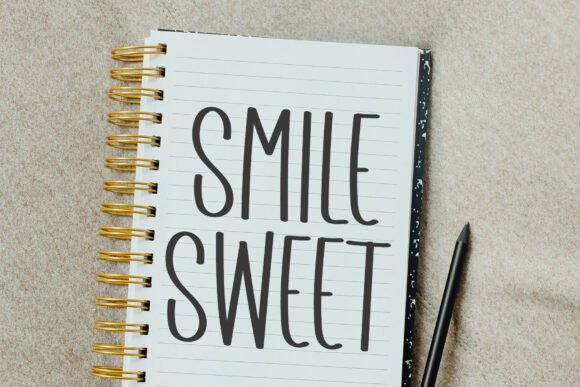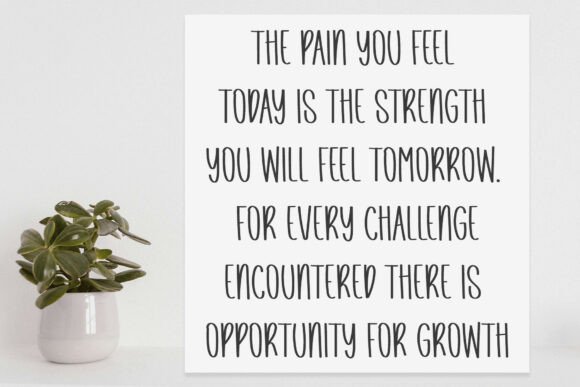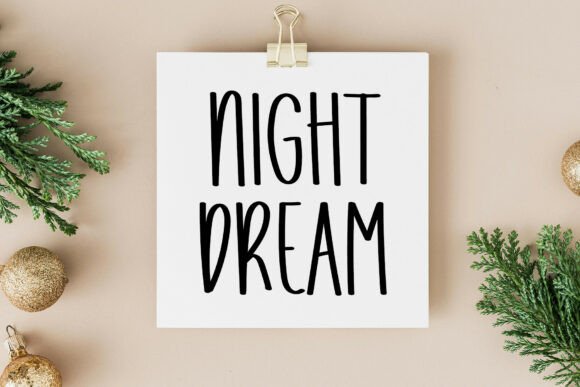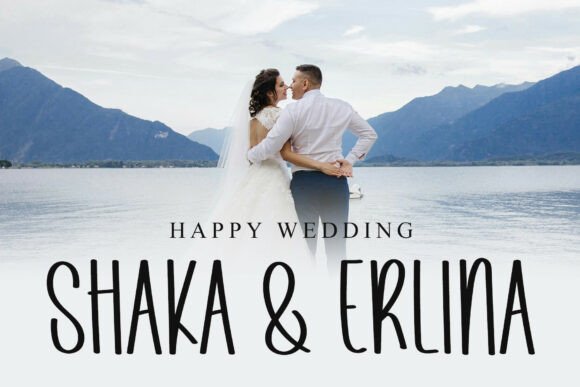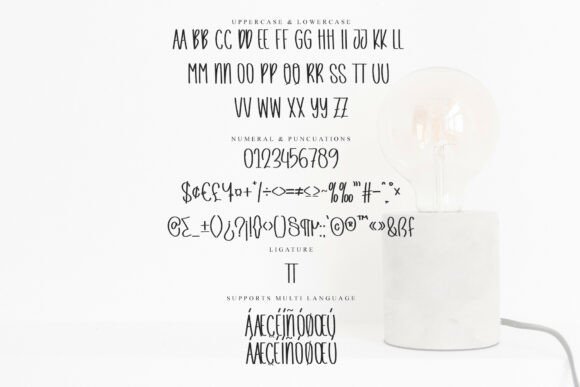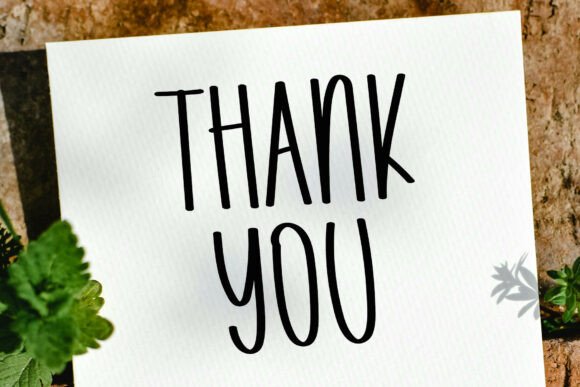
The Ultimate Guide to Funny Quotes Font: Elevate Your Designs with Elegance and Personality
I’ll never forget the time I was working on a project for a client who wanted a sophisticated yet approachable feel. I had spent hours browsing through font libraries, but nothing seemed quite right. That was until I stumbled upon Funny Quotes Font. Its beautifully crafted display handwriting style blended elegance with a modern, artistic touch, and I knew I had found the perfect fit. In this article, I’ll share my experience with Funny Quotes Font, its features, and how to make the most of it in your designs.
An Honest Review of Funny Quotes Font
So, what makes Funny Quotes Font special? Here are a few things I love about it:
- ✨ Unique and elegant design: Funny Quotes Font has a distinctive, flowing style that adds a touch of class to any design.
- ✅ Well-balanced curves: The font’s curves are smooth and well-balanced, making it easy to read and visually appealing.
- 💫 Modern and artistic touch: Funny Quotes Font has a modern feel that’s perfect for creative projects.
While Funny Quotes Font is an excellent choice, it’s not without its quirks. Here are a few things to keep in mind:
- 🤔 Limited use cases: Due to its elegant and artistic nature, Funny Quotes Font might not be the best fit for very formal or traditional designs.
- ⚠️ Glyph limitations: While the font has a range of glyphs, it might not have every special character you need.
A Practical Guide to Using Funny Quotes Font
Now that we’ve covered the basics, let’s dive into how to use Funny Quotes Font in your designs.
- Experiment with OpenType features, such as Stylistic Alternates and Glyphs, to add more personality to your text.
The Story Behind Funny Quotes Font
Funny Quotes Font was designed with the goal of creating a unique, elegant font that would add a touch of personality to any design. The designer, inspired by the flowing strokes of calligraphy, aimed to create a font that would be both sophisticated and approachable. The result is a font that’s perfect for creative projects, from social media graphics to wedding invitations.
| What is Funny Quotes Font? | Funny Quotes Font is a beautifully crafted display handwriting font that blends elegance with a modern, artistic touch. |
| Is Funny Quotes Font suitable for body text? | While Funny Quotes Font is elegant and easy to read, it’s best suited for display text or headings. For body text, a clearer font might be more suitable. |